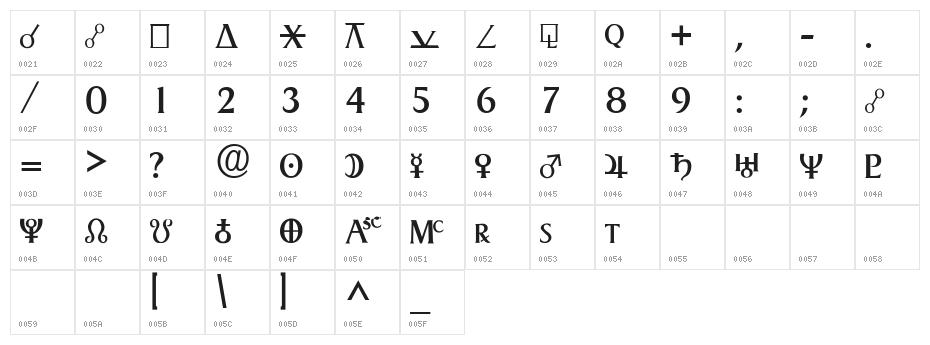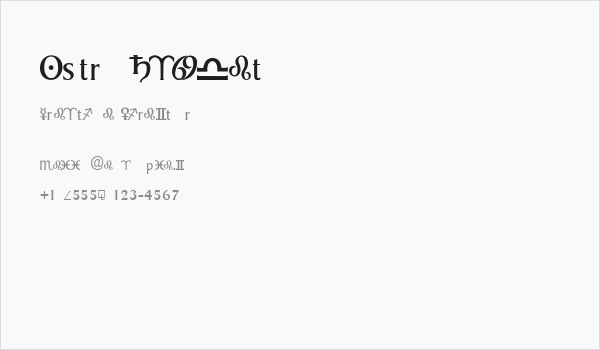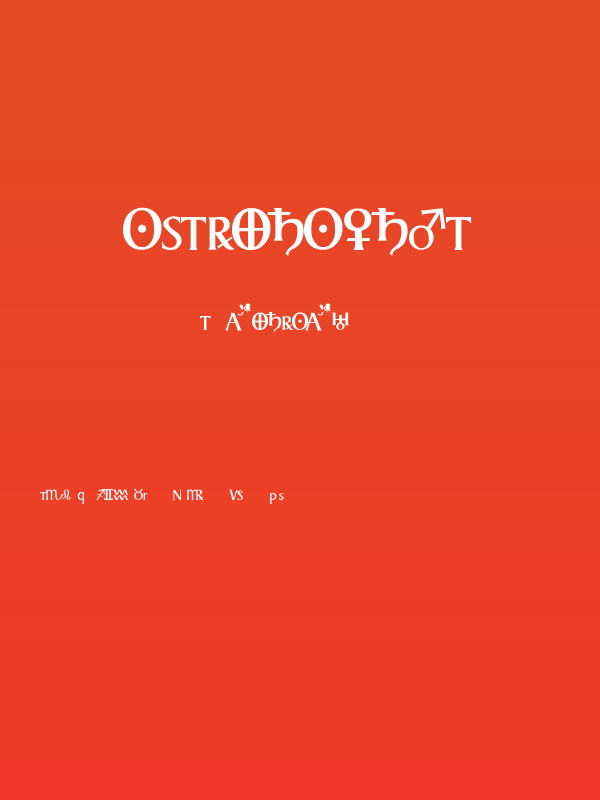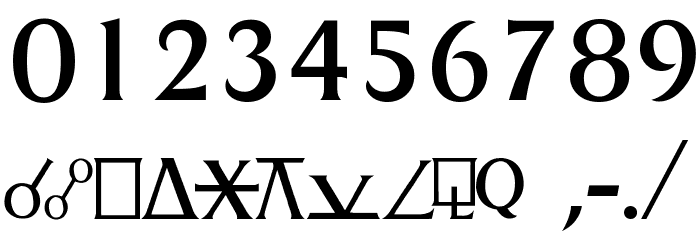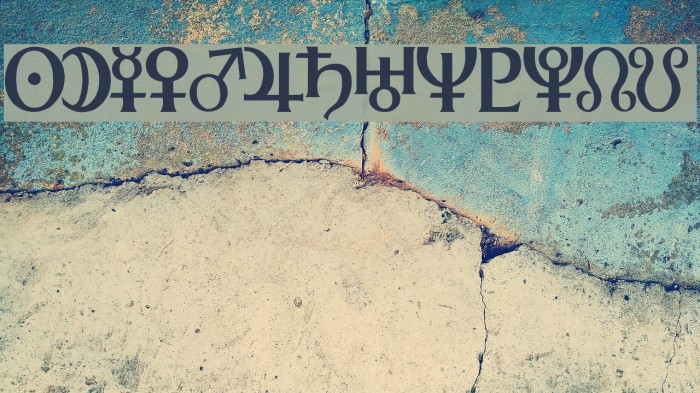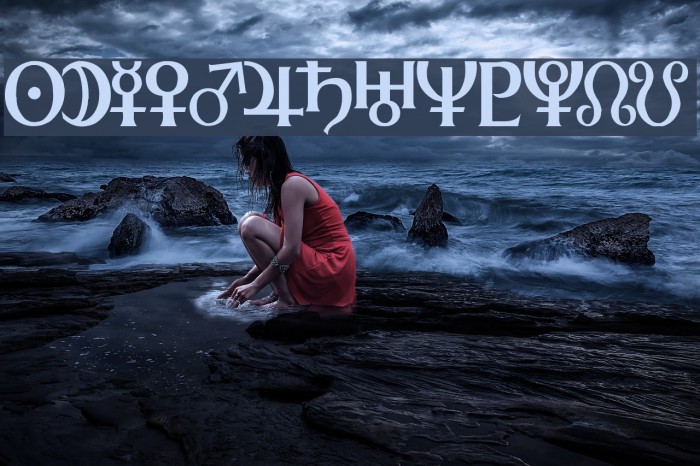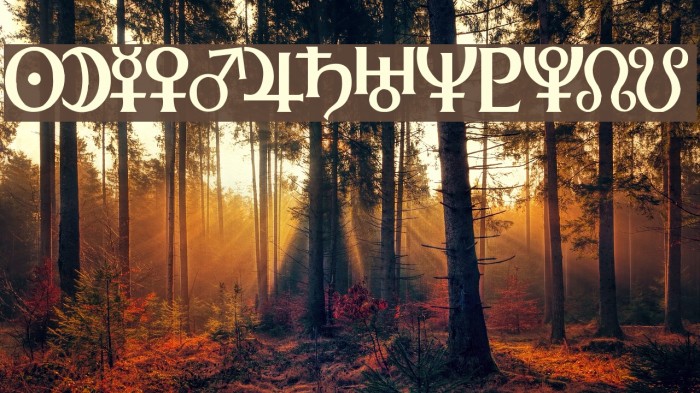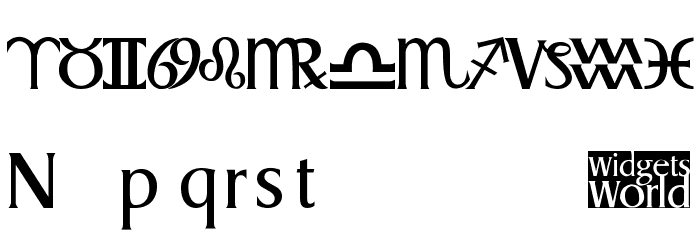
AstroGadget Font
AstroGadget Description
This font features a unique and eclectic design, incorporating elements that resemble astrological symbols and geometric shapes. The uppercase letters are highly stylized, with intricate curves and lines that give them a mystical and futuristic appearance. The lowercase letters are more subdued but maintain a consistent style with the uppercase, featuring subtle curves and unique forms. The numerals are bold and distinct, with a modern flair that complements the overall design. Special characters are creatively designed, adding to the font's decorative appeal. This font is ideal for projects that require a touch of the extraordinary and the cosmic.
| Overall Style | Futuristic, Mystical, Decorative |
| Proposed Projects | Ideal for astrology-themed projects, sci-fi book covers, mystical event invitations, and unique branding materials. |